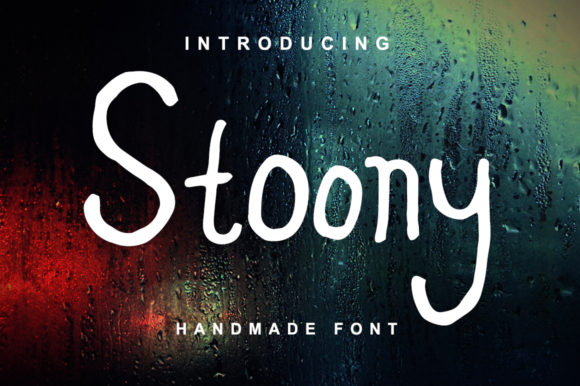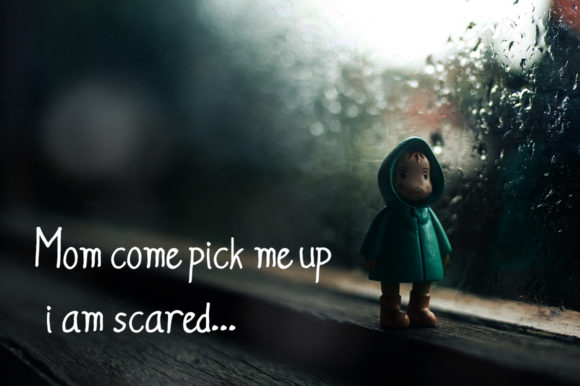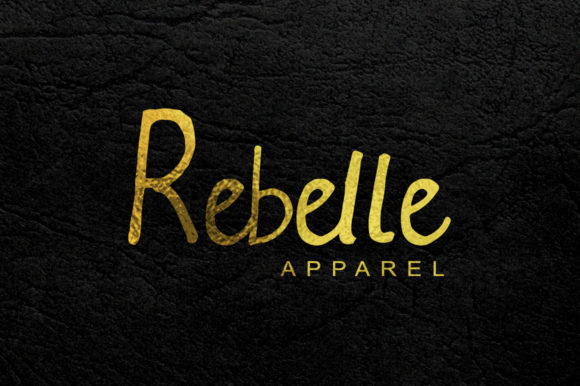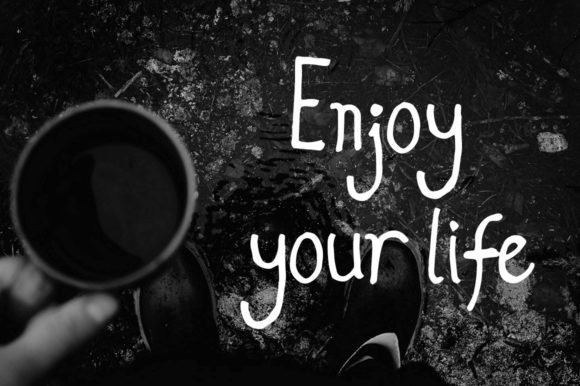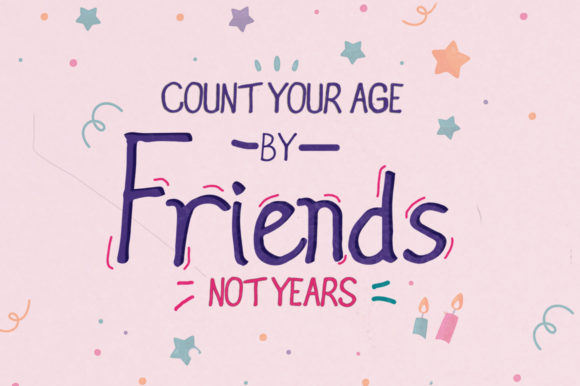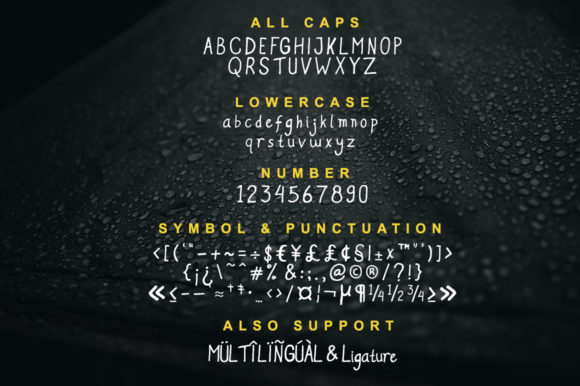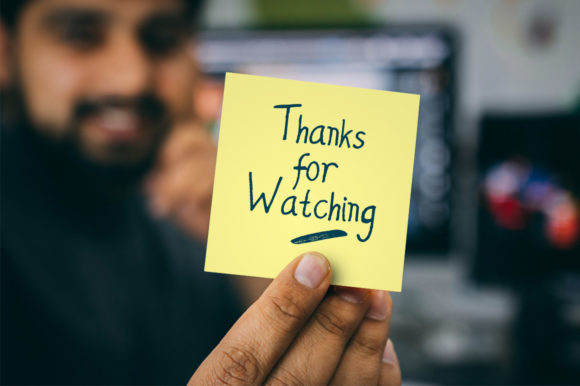
Stoony Font
About Stoony Font
Stoony embodies fun, quirkiness and authenticity. This enchanting handwritten font will turn any creative idea into a true standout.